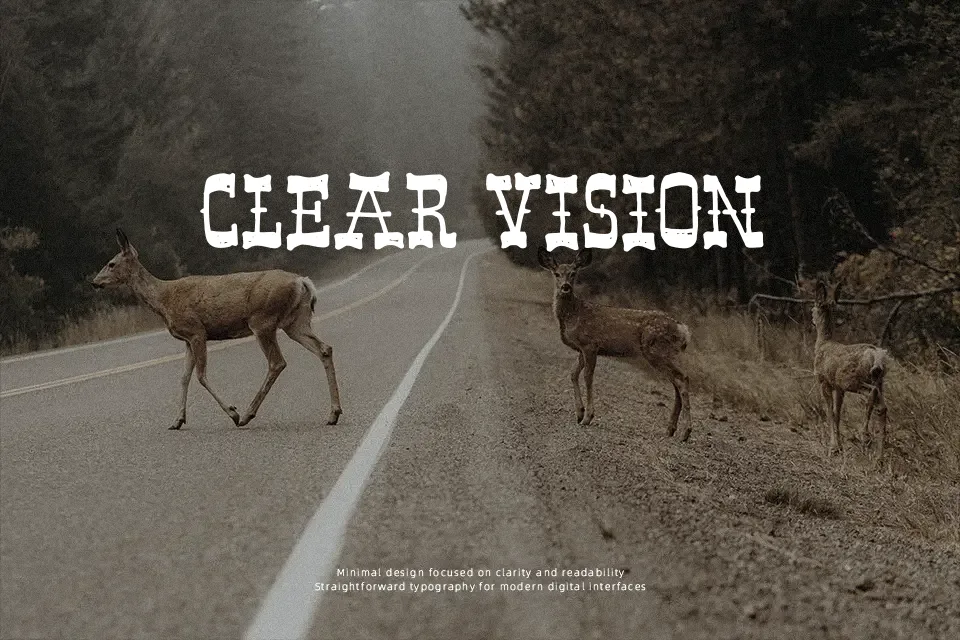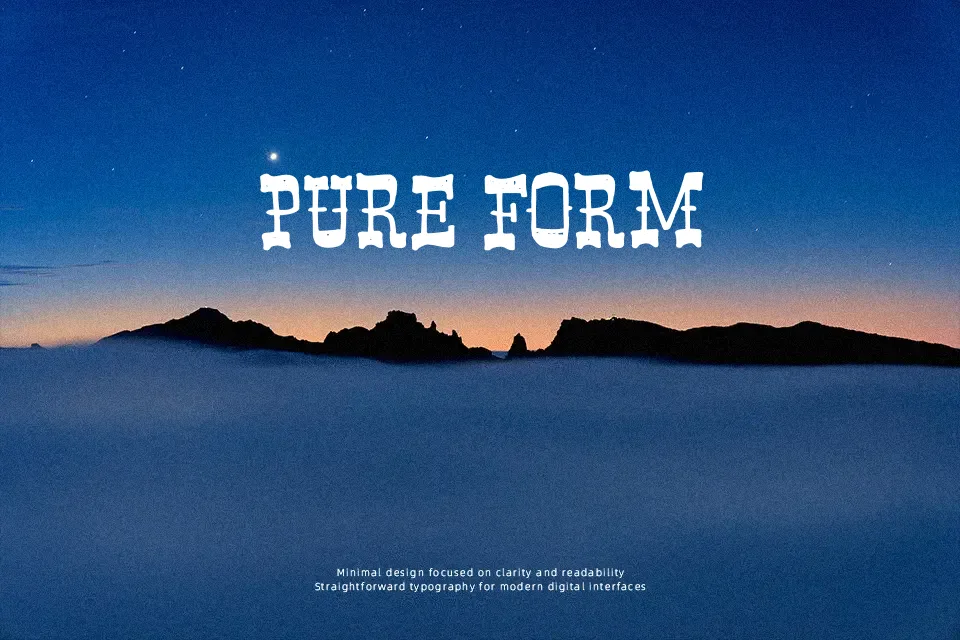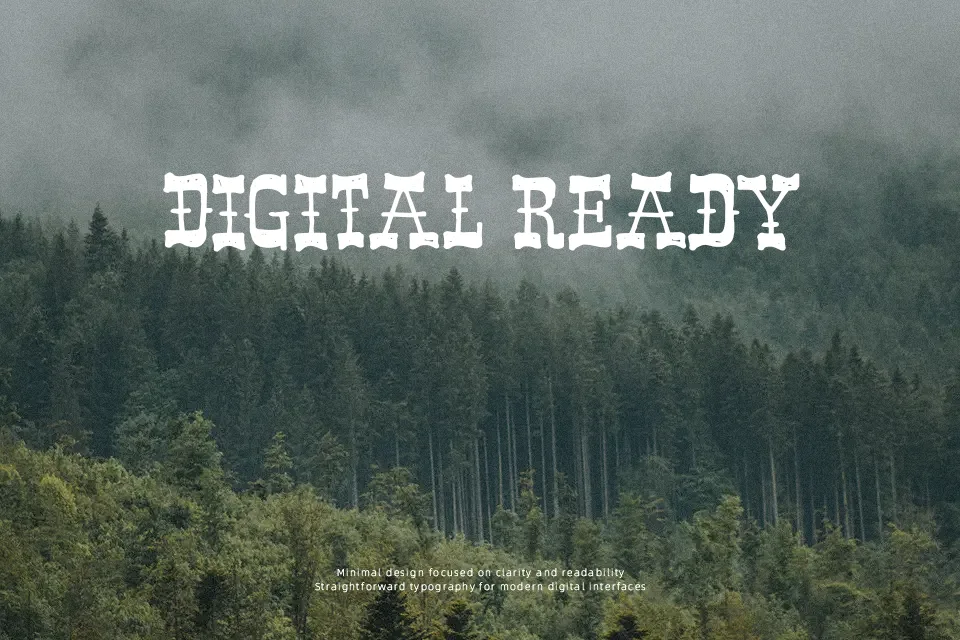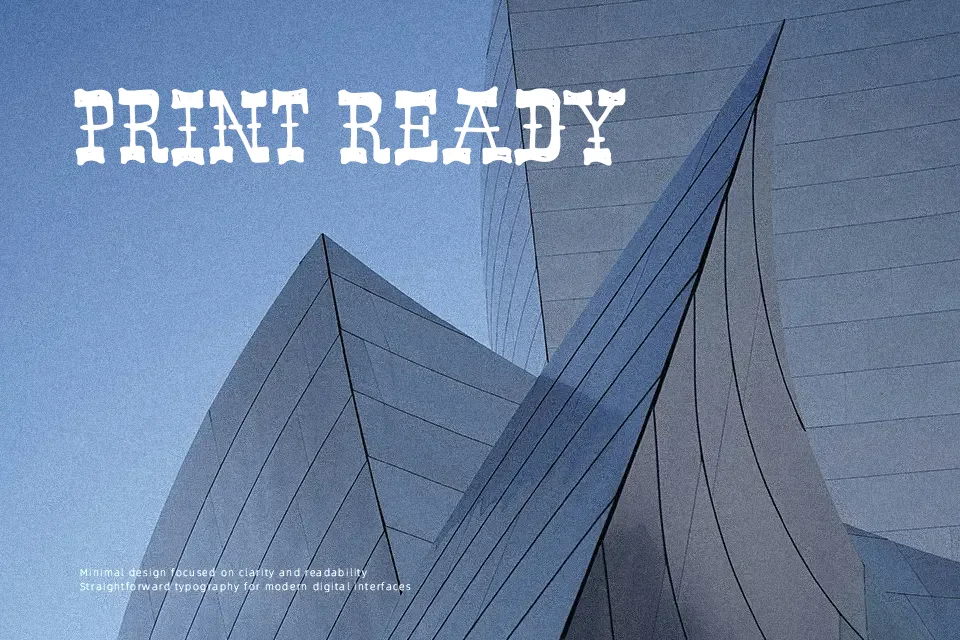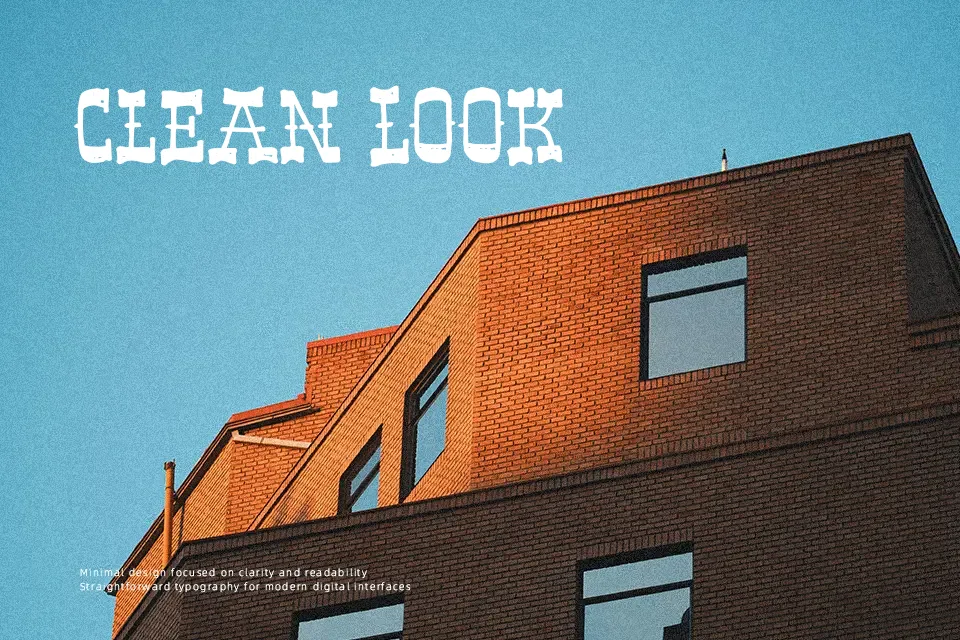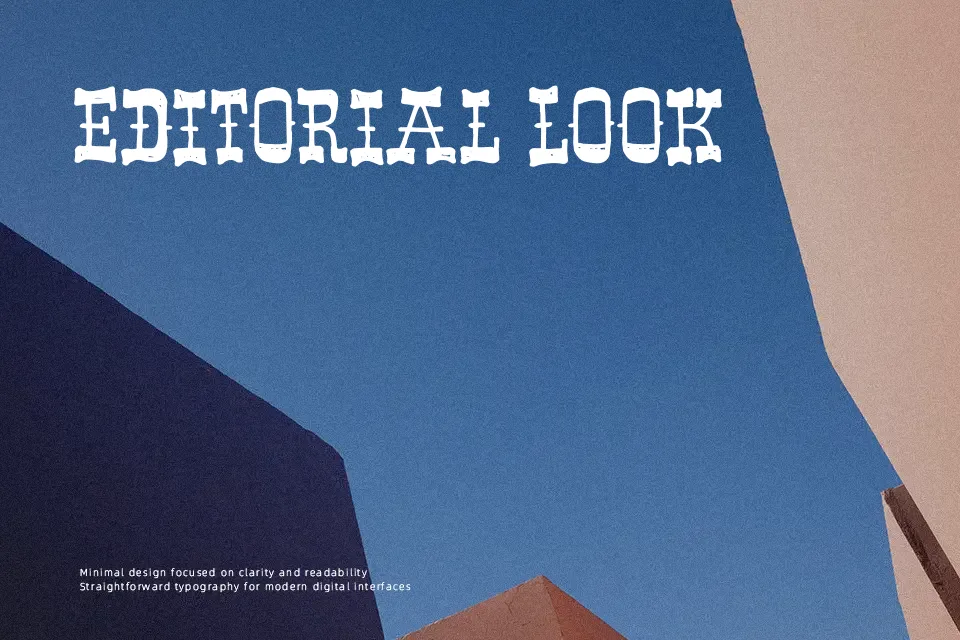
Band Wagon Font
Band Wagon Font leans into chunky, uneven strokes with curly slab serifs and prominent spurs, giving letters a rough, hand-painted Western character. The spacing is fairly tight and the forms are heavy, so it reads best at larger sizes where the decorative details can breathe. It suits rodeo flyers, saloon-style signage, cowboy-themed restaurant menus, or retro country music artwork that needs a touch of “ye olde outlaw” charm. However, the stylized shapes quickly become tiring in long text or small captions. It works well when you want a strong Western accent on headlines, but it does not work when a clean, neutral or highly legible body font is required.
Western-themed event posters
cowboy restaurant menus and signage
vintage country music artwork
saloon-style branding and packaging
minimalist or tech-oriented interfaces
small captions or dense body copy